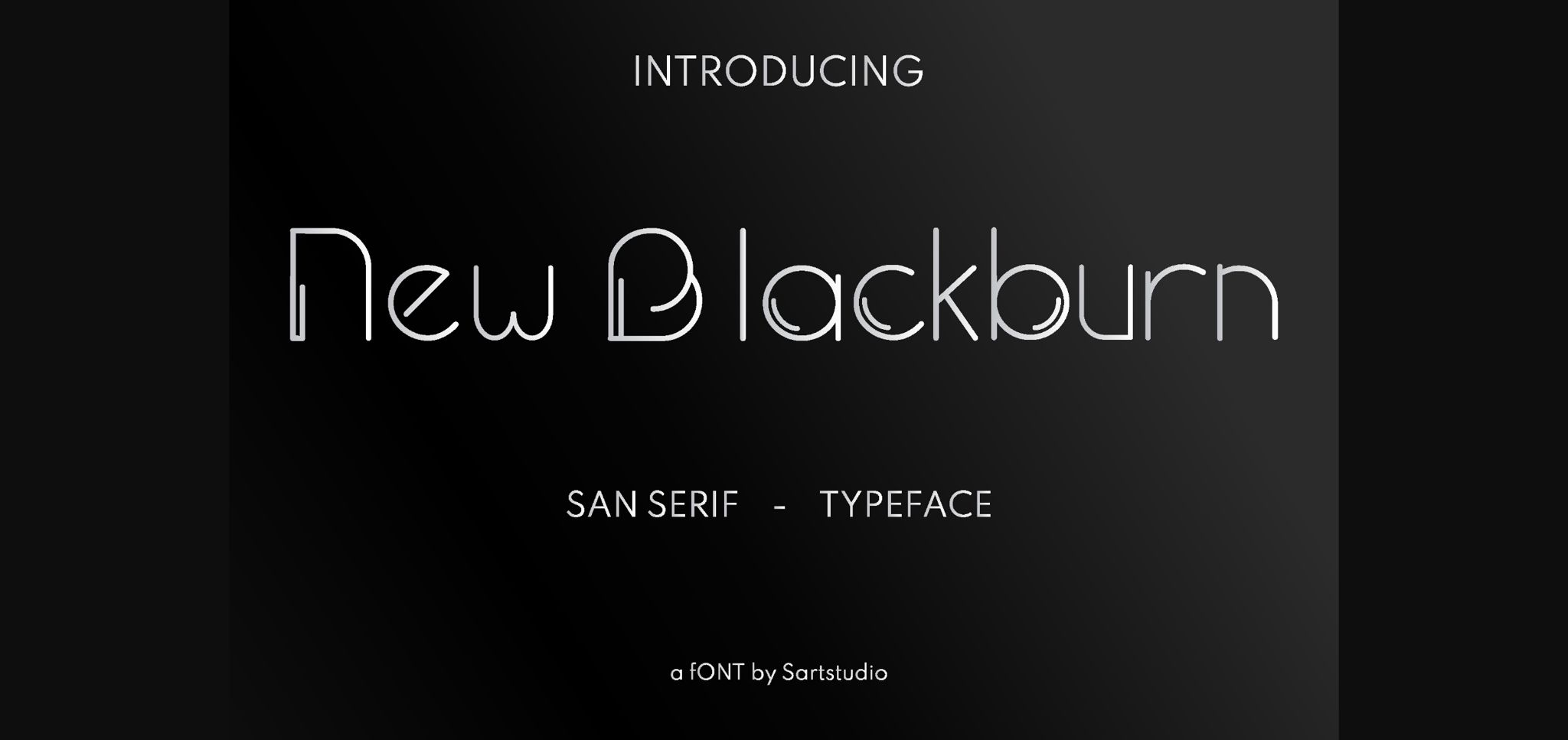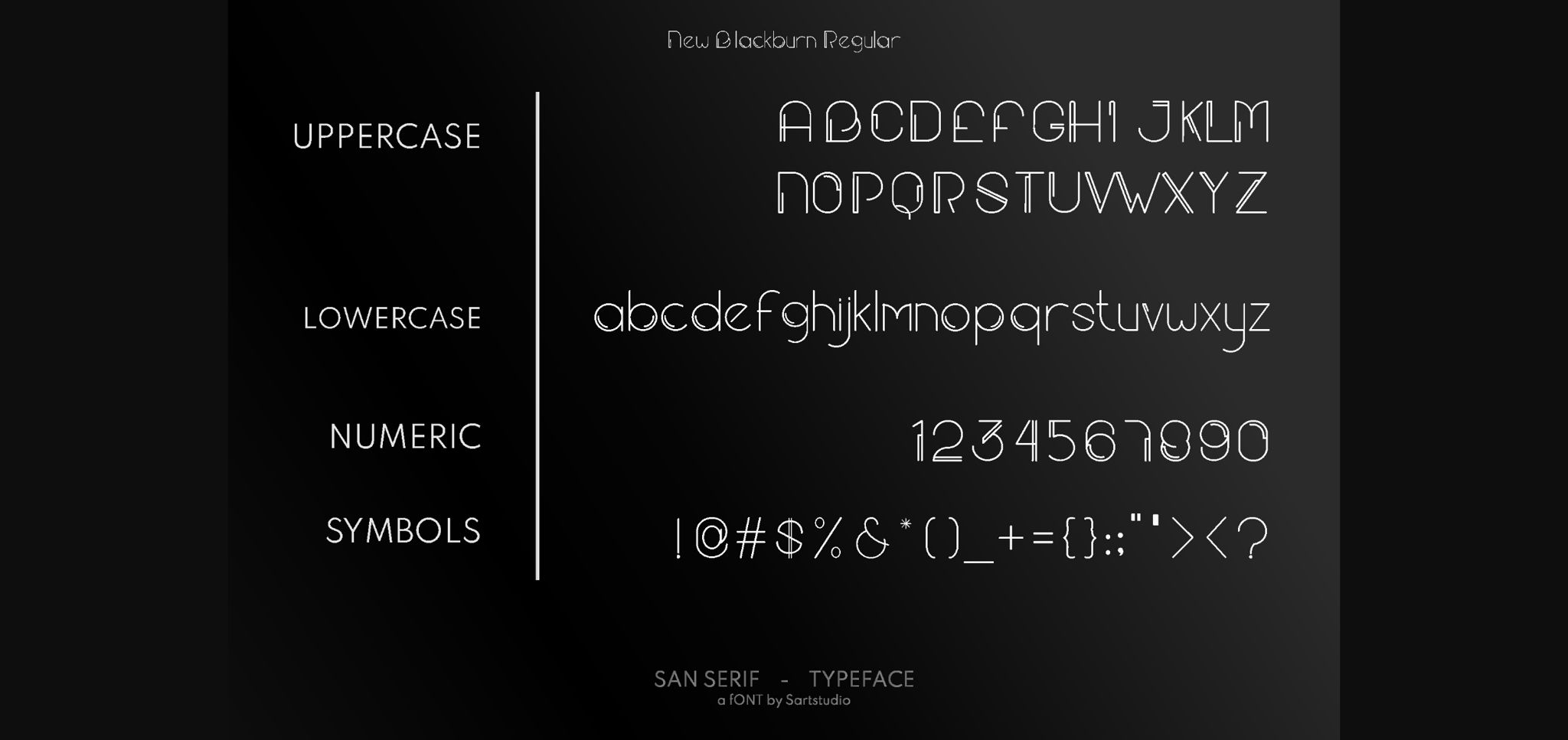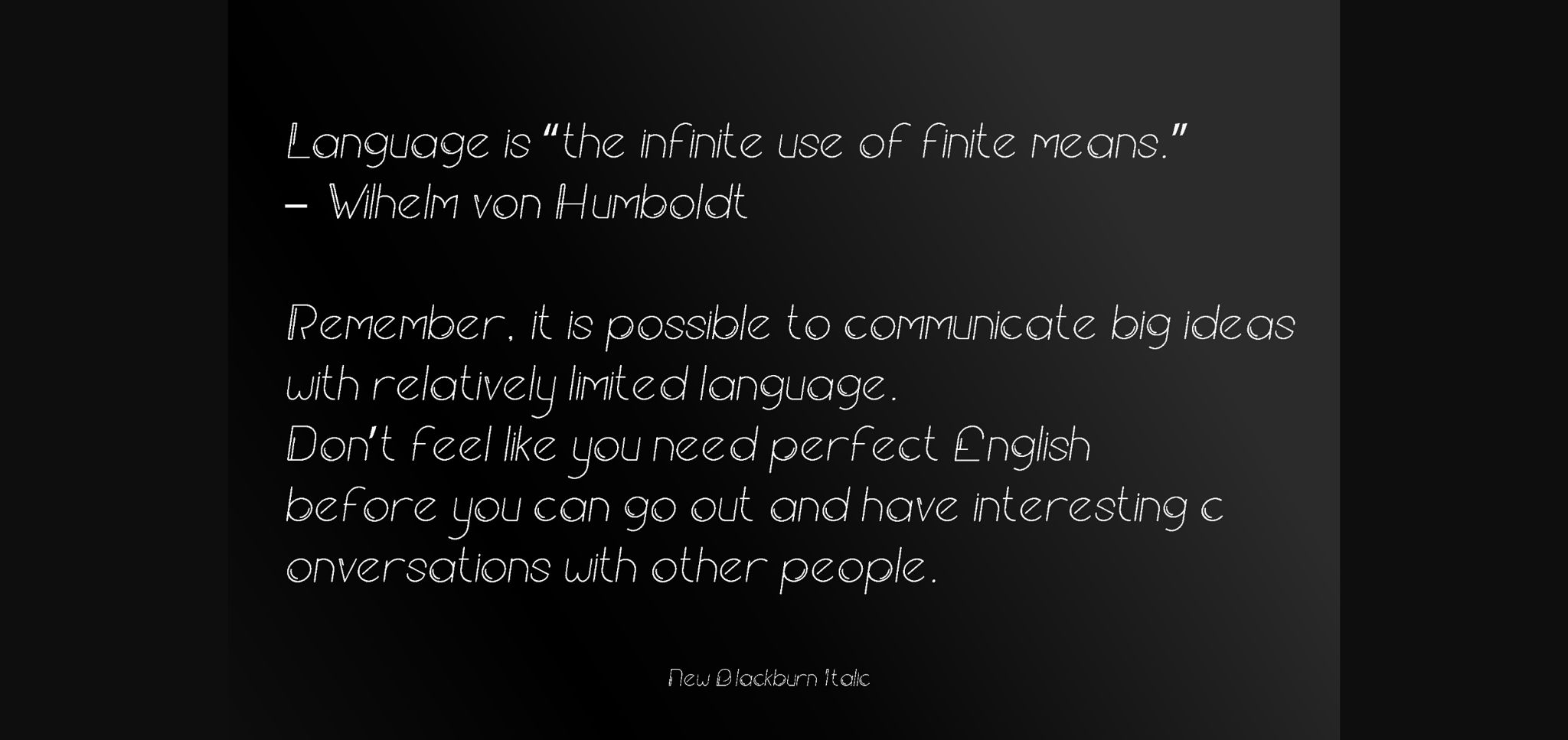
New Blackburn Font
About New Blackburn Font
New Blackburn is a simple and casual sans serif font with an undeniably clean feel. With its neat and beautiful arrangement of letters, this typeface will look outstanding in both formal and non-formal designs.